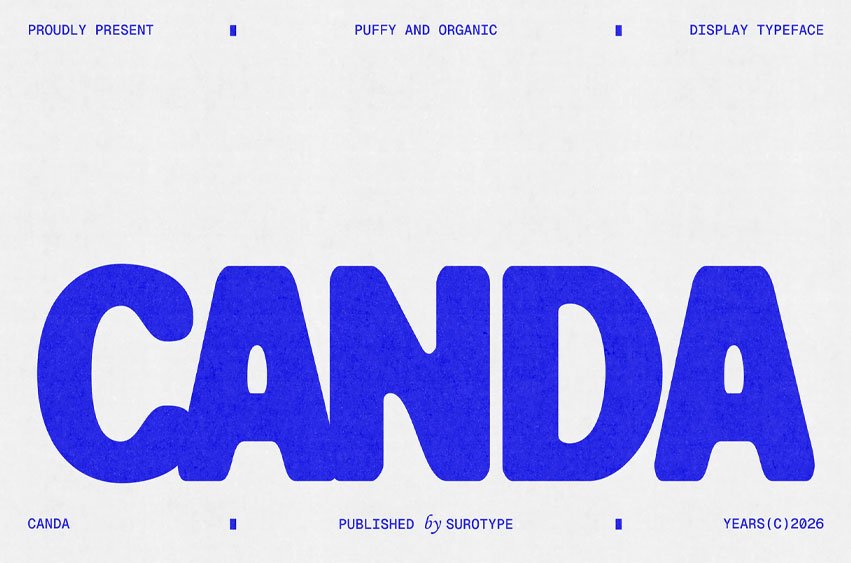
Canda Font is a display sans-serif that embraces a Puffy and Soft-Edge aesthetic, meticulously crafted to strike the perfect balance between high-impact visual energy and an approachable, friendly tone. Featuring an ultra-chunky anatomy and intentionally irregular rounded silhouettes, this font delivers a unique character that stands apart from standard, rigid geometric typefaces.
The true essence of Canda lies in its distinctive visual rhythm. Its asymmetric proportions and organic spacing evoke a sophisticated handmade feel, adding soul and texture to modern designs. It is the premier choice for creators aiming for a look that is bold and spontaneous, yet undeniably professional.
Features & Character:
- Organic Irregularity
- Ultra-Chunky Presence
- Versatile Personality
- Handmade Soul